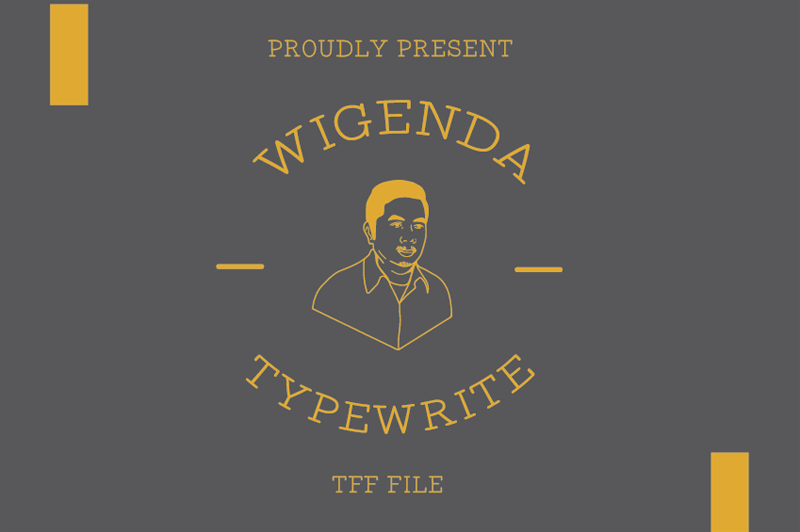
Preview and download Wigenda Typewrite Font. Created by Mohamad Farhan Ramadhan in Fancy Typewriter styles with Free for personal use license.
Wigenda Typewrite is new and modern typewriter with clean and thin-thick stroke it's perfect for formal, web font, formal modern flat and etc. So add it to your creative ideas and notice how it makes them stand out! Updated: available Heavy, bold, semi-bold, and regular style font The License for commersial use: https://www.creativefabrica.com/product/wigenda-typewrite/ref/401336/ |